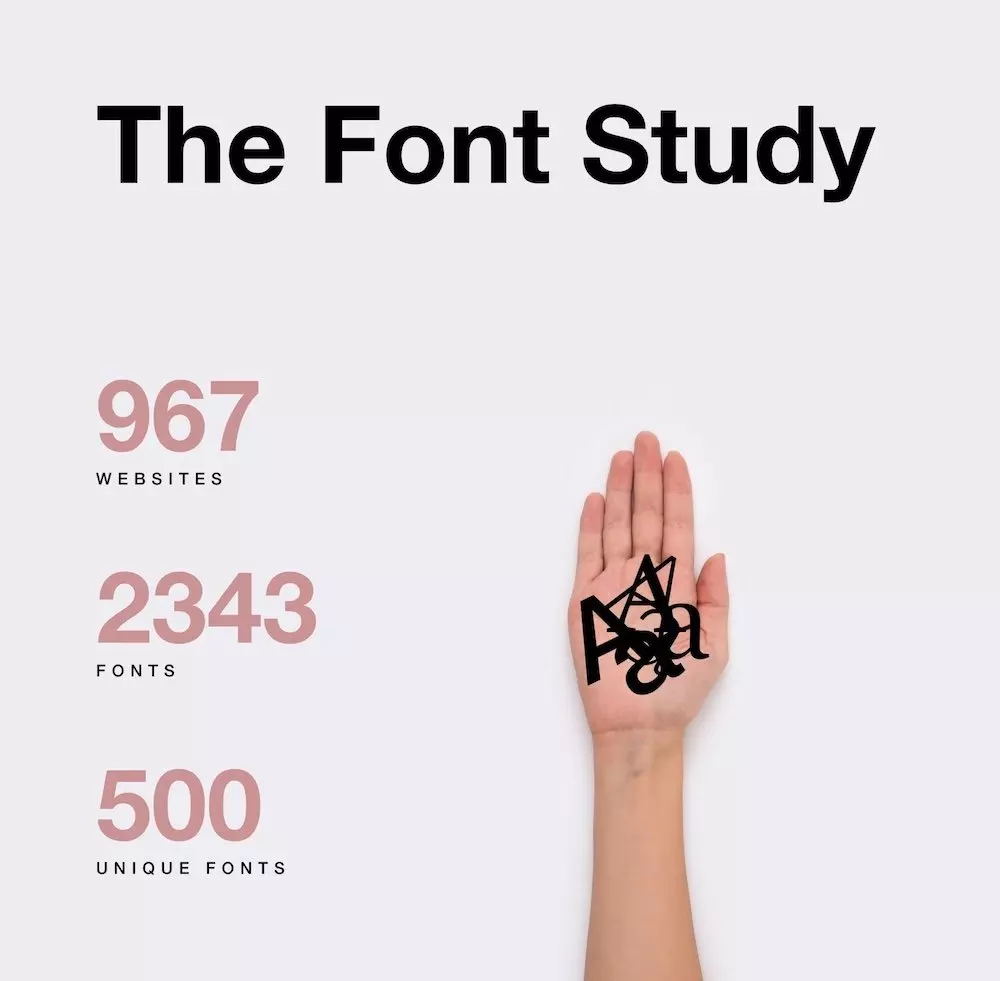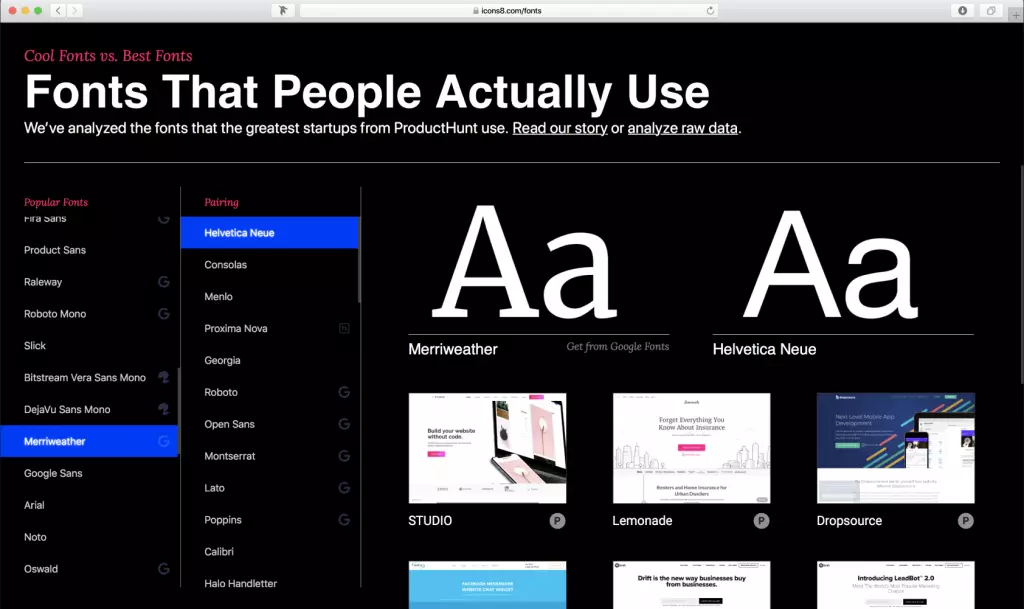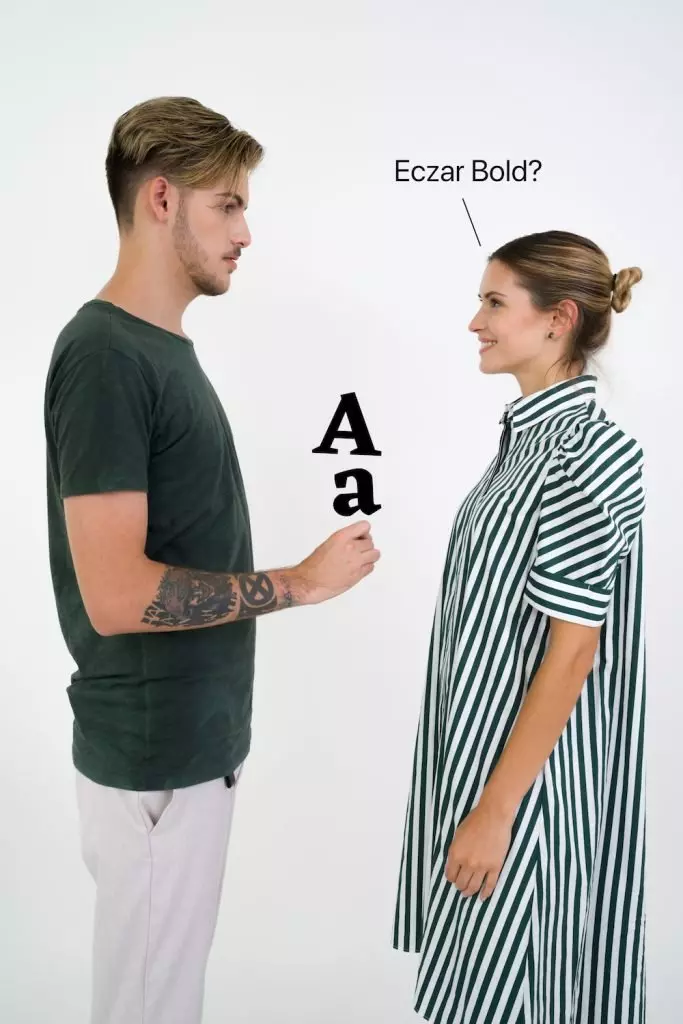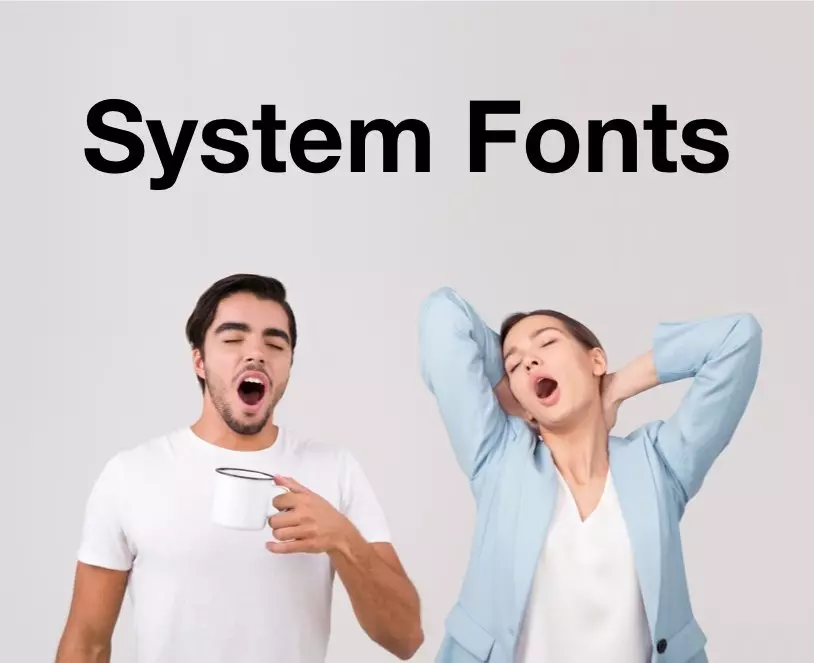
Summary: According to our fonts study, designers of the best startups don’t use the trendy, cool fonts (surprise). Instead, they rely on old good system fonts, some of the popular Google Fonts, and they misspell font names a lot.
“What’s your favorite font face?”
Impressing a Designer
“What’s your favorite font face?” — she asked after the second glass.
That was a tough question.
Segoe UI? Uncool.
Comic Sans? OK, you tried to be funny at least.
Helvetica Neue? It lacks personality.
Which fonts are cool fonts? Which fonts do people use after all? In particular, which fonts do successful teams use?
Fonts of the Best Startups
So we performed a study.
For best startups, we chose those which won on ProductHunt. We took it over multiple years.
We scraped the CSS from these websites and checked the font-face attributes.
Font Study Results
This way we’ve got:
• The most popular fonts
• For each of them, the most popular font combinations
• For each font pair, the list of websites that use it
Have a look
The most popular font combination on ProductHunt: Helvetica Neue and Consolas
Numbers
We’ve got thousands of fonts in the study.
Let’s limit our analysis to:
• Top 50 fonts
• For each of these, top 50 fonts that combine with them.
Here’s what we get.
Here’s our study of the best fonts in the numbers.
Best Fonts
We hoped to find the combinations of the fonts that trend in each particular year. Instead, we’ve found that there are few trends. In fact, people remain using the same fonts over and over again for years, if not centuries.
Key Insights
• People use the system fonts, a lot.
People use the system fonts, a lot.
• People use Google Fonts, a lot.
• And there’s a long tail of the misspelled fonts. See below for some entertaining stats.
• People use many icon fonts. Many! We’ve filtered out over 20.
• Shockingly, no Comic Sans!
Icon Fonts
New projects still use the fonts for icons in 2018 (how to convert the icons to the fonts — better don’t though).
While we proposed a number of better solutions, they’re not close to our Line Awesome library. Is it the purpose? Replacing one icon font with another icon font.
Funny: Misspelled Fonts
At first, we tried to locate all fonts in 3 font libraries:
• Google Fonts
• Typekit
• Font Squirrel
Of 500 unique fonts that we scraped, only 126 had matches in any of three libraries. Of the remaining 374, misspelled words are the majority.
Examples of the misspelled fonts:
• Montserray → it should be Montserrat
• Rpboto → it must be Roboto
Cliches Are True
People don’t look like their Instagram shots. True.
People are not as happy as their Facebook profiles are trying to convince us. True.
And designers don’t use all that trendy font combinations. True. We love this guide from Great Simple. Our study shows people only like it.
“Whatever Chrome shows for sans-serif, I like it”, — I can say.